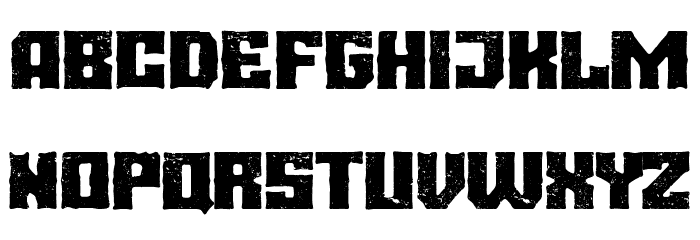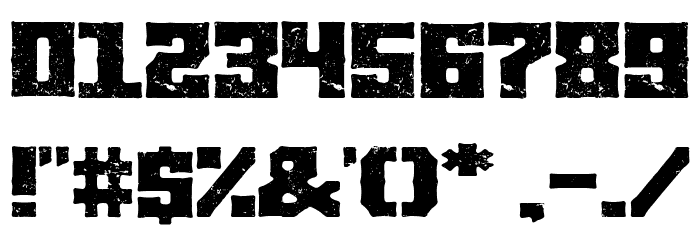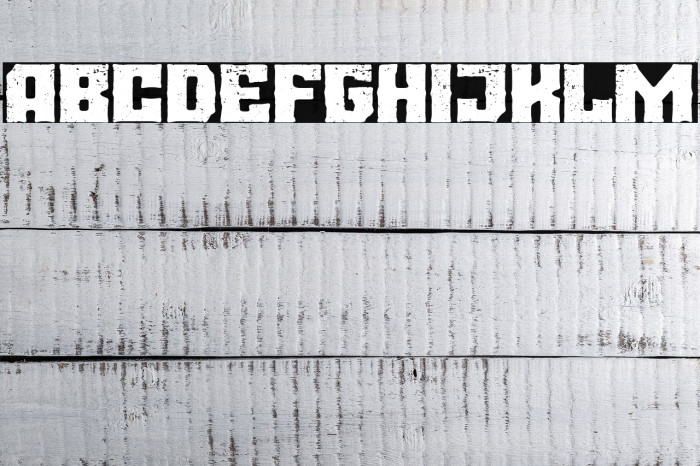
Burgos city Font
This font exhibits a bold and rugged style, characterized by its distressed and textured appearance. The letters are blocky and robust, giving off a strong, industrial vibe. The rough edges and uneven surfaces suggest a weathered or worn look, adding a sense of history and character. This style is reminiscent of vintage signage or old printing techniques, where imperfections add to the charm. The uppercase letters are uniform in height, while the numbers and special characters maintain the same distressed aesthetic, ensuring a cohesive look across all elements.
A bold, distressed font with a rugged, vintage appearance.
- Font: Burgos city
- Proposed Projects: Ideal for projects requiring a strong, vintage feel, such as posters, album covers, or branding for rustic or industrial-themed businesses.
- Overall Style: Vintage